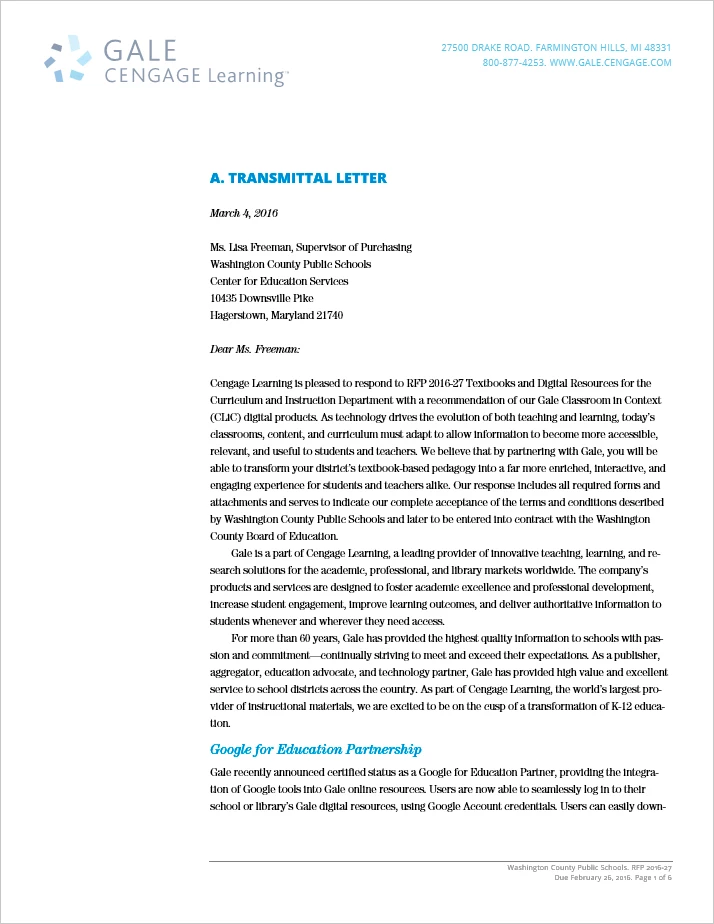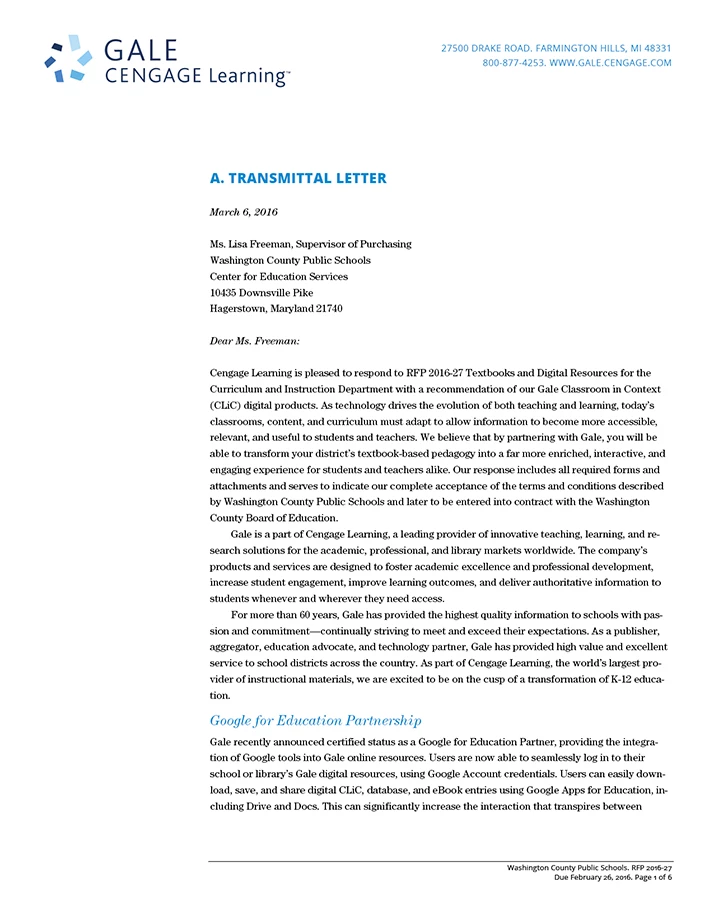
Bizarre font substitution problem
Is there any way to utterly force Adobe PDF's printer driver to use only document-specified fonts that are installed at the system level and stop printer font substitution?
I am having a thorny and bizarre font substitution problem with Microsoft Word 2016.
• I designed a corporate identity for a company that deals with education publishing.
• I specified using "ITC Century Std" as a standard font in the identity.
• When we view a test document I created on screen in MS Word, there are 3 lines of text at the bottom of the page after a subheading. (see attached JPEG Word screenshot)
• When you print that document to either Adobe PDF as a printer or to any paper laser printer, there are suddenly 5 lines of text at the bottom of the page after the same subheading! And more bizarre, every single line on the page has the exact same line ending (even hyphenated words are identical).
At first, I thought it must be a font substitution problem, or a margin change problem.
Then, I did a little digging, and sure enough "New Century Schoolbook" is a standard printer font installed on virtually every printer on the market. Its italic is rather different than the italic in ITC Century Std. And when I look at the PDF created and the paper prints of the document, the italic is indeed that of the built-in Century Schoolbook font rather than ITC's. So, font substitution is definitely the problem....Century Schoolbook's x-height and fit are slightly smaller, too, hence more lines fitting on the page (without changing line endings?!)
Just to test, I went in to the document and changed the "Normal" style to use Century Schoolbook as the font instead of ITC's Century, and the problems went away on both paper laser prints and also Adobe PDFs.
When you look at the Properties of the incorrect PDF file printed to the Adobe PDF printer from Word, it says in the Fonts tab that the Postscript version of ITC Century is used in the document. But, the fonts are actually Century Schoolbook (as evidenced by the italic)! So, not only is a font substitution happening, it's displaying the properties of the fonts I specified in Word, but which are not being honored in the PDF. Bizarre.
So, I went into both my Dell laser printer's driver and the Adobe PDF printer driver, and I changed the Postscript option from "Substitute Device Font" to the "Download as Softfont" option......which, as I understand it, is supposed to FORCE the printer to honor the application's specified fonts.....But, it did not work. The files still swap the ITC Century for Century Schoolbook.
• screenshot from MS Word
• JPEG of the Adobe PDF showing different line
SCREENSHOT FROM WORD:
JPEG of the file made through the ADOBE PDF printer driver:
I've downloaded your .ZIP file, extracted your files, installed both the ITC Century Std and OpenSans font families and repeated the experiments on my system.
Attached to this posting are two PDF files, the first the result of printing to the AdobePDF PostScript Printer Driver instance and the second the result of using PDFMaker in Word 2016 (fully updated).
My observations:
• The two PDF files that I generated are pretty identical in terms of layout, fonts used, and general visual appearance.
• Internally inspecting the PDF files, the Century Std fonts embedded in the PDF files absolutely match the fonts that I installed and that are invoked in the Word document. Visually, the PDF file text in the Century Std fonts totally match the glyphs defined in the ITC Century Std fonts.
• The PDF file you sent me matches the PDF file I generate with the exception that in your file, Arial is not embedded probably due to your use of joboptions that don't embed so-called “system fonts.”
• Yes, there is a difference in pagination and formatting between how the Word document appears on screen and the resultant PDF files or for that matter, printed output. This has been an issue with Microsoft Office products since they first came out. Formatting for output is done within the Office applications, not within the driver or PDFMaker and takes into account the printable area of the page (i.e., the page size less the area of the non-printable margins), some obscure Type 1 and/or OpenType CFF font metrics (especially when dealing with professional fonts as opposed to the fonts distributed by Microsoft with Windows and Office) as well as the current device's resolution. (I've been at Adobe for nearly 26 years and no one at Microsoft seems to see this as an issue worth fixing!) This is exactly why for work that absolutely depends on precise, dependable formatting, Microsoft Office products including Word and Publisher are at best unreliable. I wish it was otherwise!
• On my system, the visual appearance of the text formatted in ITC Century Std fonts in Word does match what I see in the PDF files in Acrobat.
Bottom line is that other than the relayout issue which Adobe can do nothing about (it's not in our code, the layout is done in Office), I am not seeing any problem.
Back in the day we use to have problems with fonts and printers.
We used to convert text into path before sending it to the final print and that helped us avoid the printer-font issues.
We usually recorded one ps with the actual font and sent the printer one in text in path.
None the less, the problem that you are encountering shouldn't occur and I'll follow up with your samples.